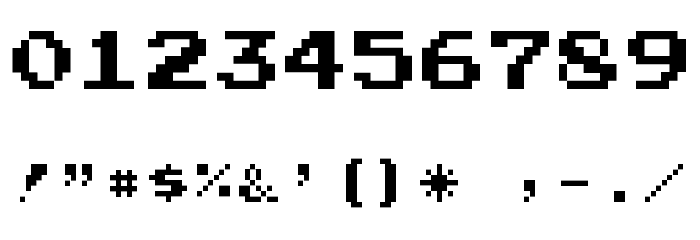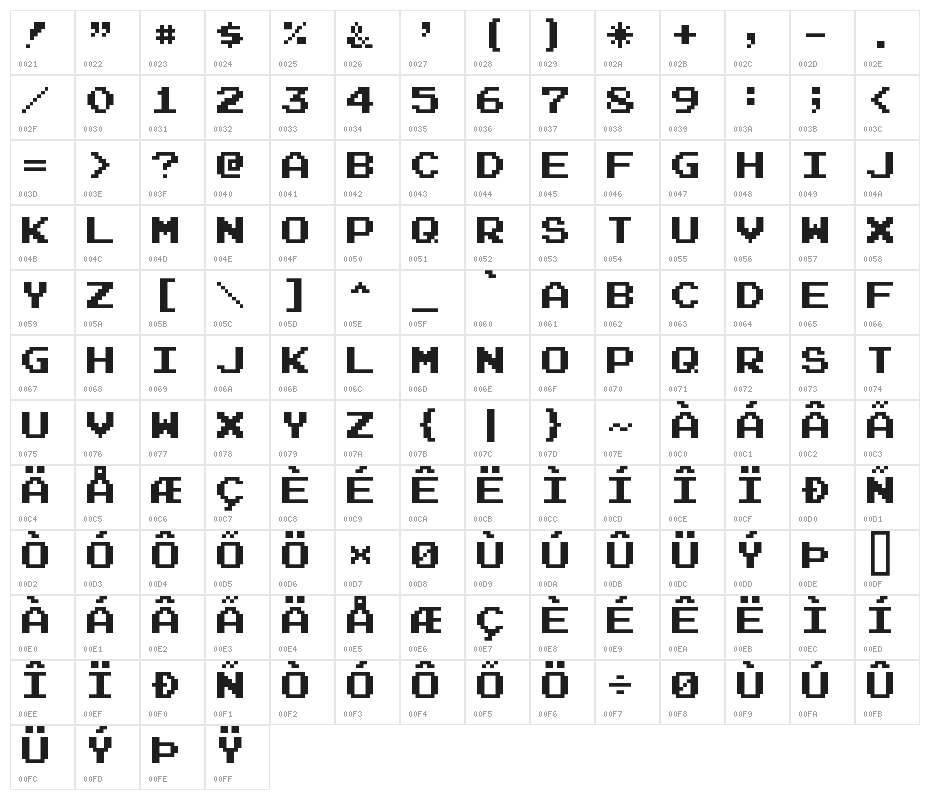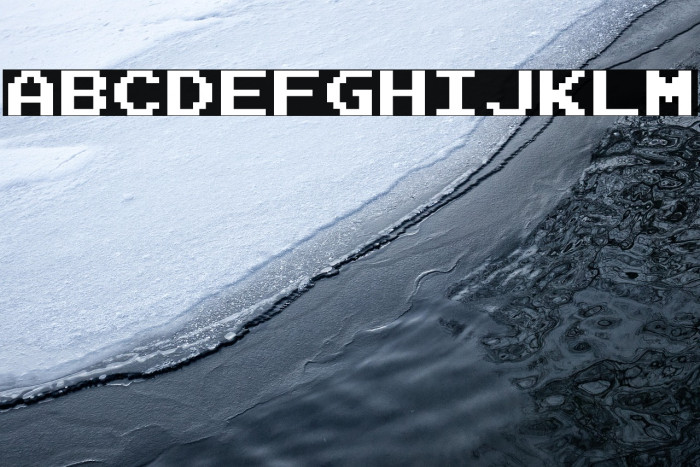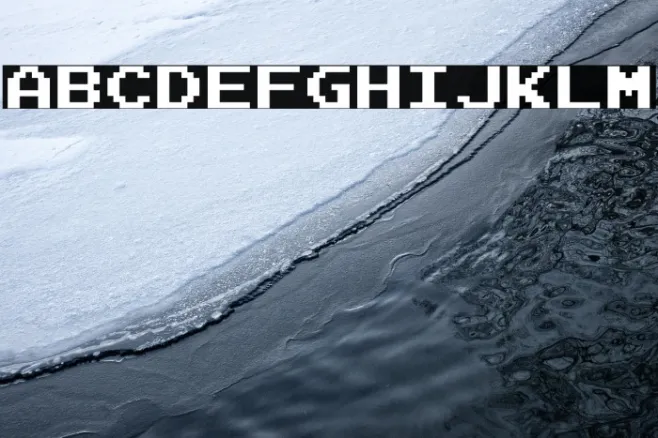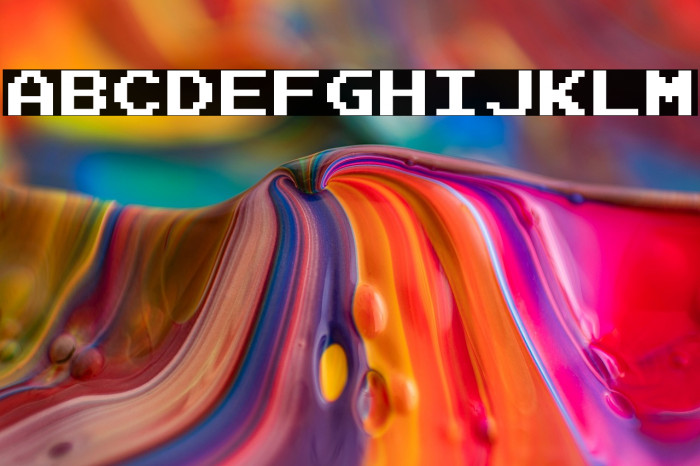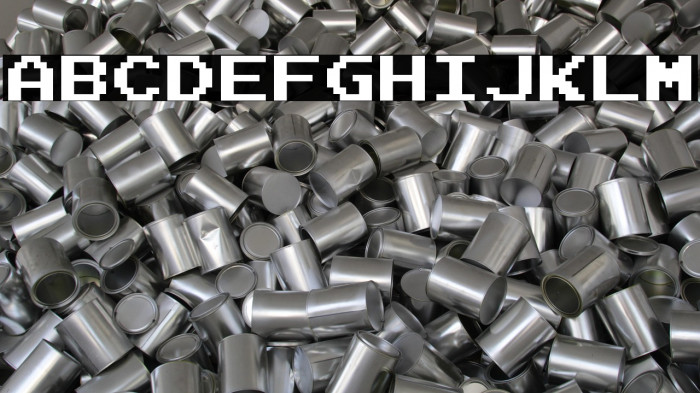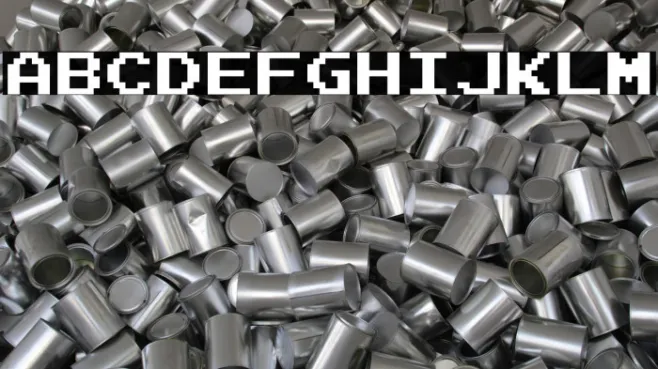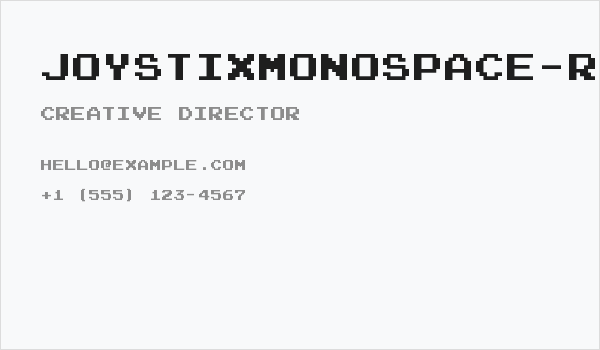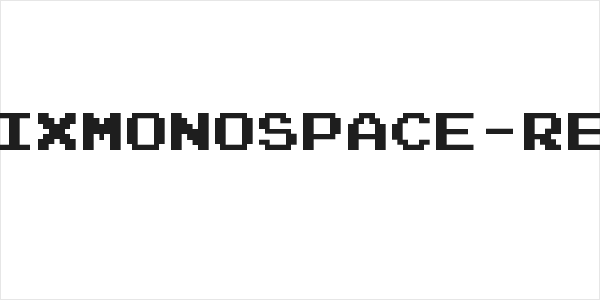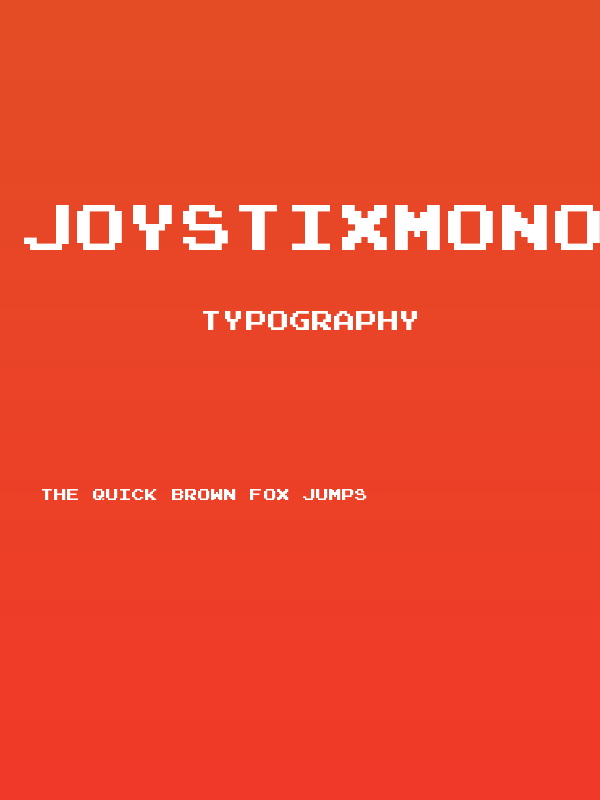
JoystixMonospace-Regular Font
JoystixMonospace-Regular Description
This font features a bold, pixelated design reminiscent of classic arcade games and early computer graphics. Each character is constructed with a blocky, grid-like structure, giving it a retro and digital aesthetic. The uniformity in width across all characters emphasizes its monospaced nature, making it ideal for coding and technical applications. The font's distinct style is characterized by its sharp edges and lack of curves, creating a strong visual impact. Its simplicity and clarity ensure legibility even at smaller sizes, while the nostalgic feel adds a playful touch to any project.
| Overall Style | Retro |
| Use Case | Logos, Digital displays, Coding interfaces |
| Proposed Projects | Perfect for retro-themed designs, video game graphics, coding interfaces, and digital art projects. |